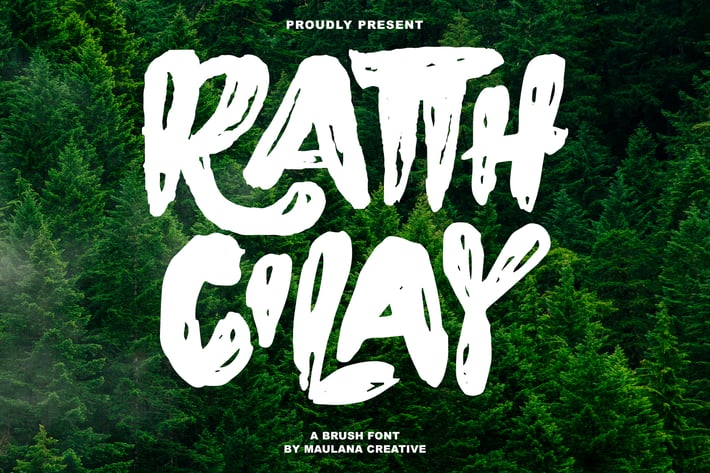
Ratth Cilay Brush Font
Ratth Cilay brush handmade font. This font is good for logo design, Social media, Movie Titles, Books Titles, a short text even a long text letter and good for your secondary text font with signature or script typeface. Make a stunning work with Ratth Cilay handmade brush font.